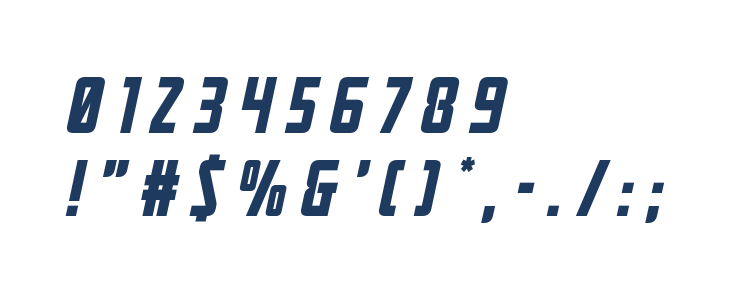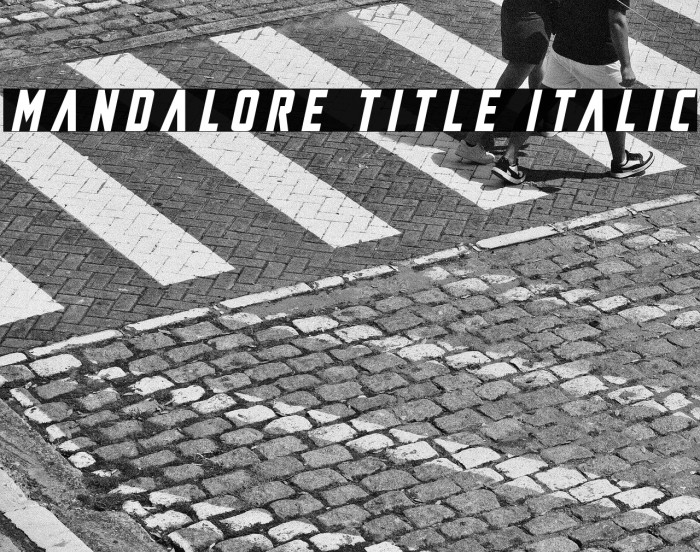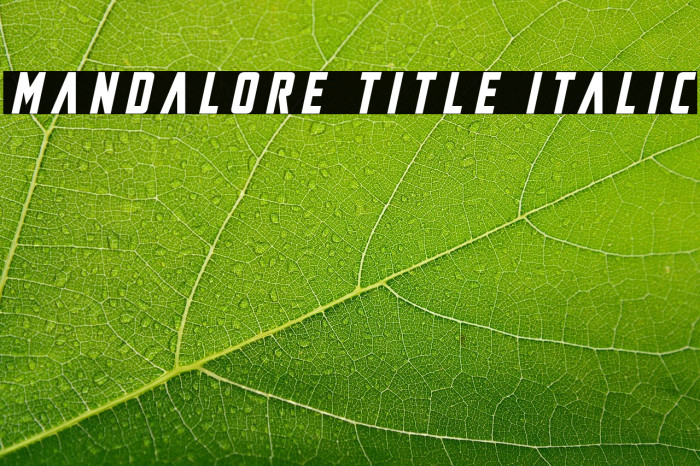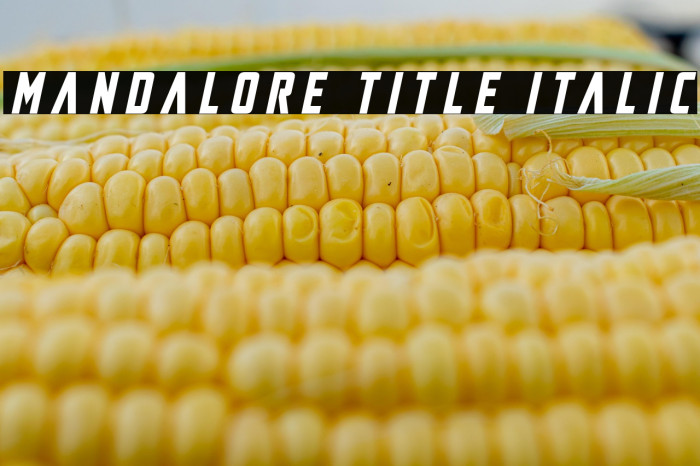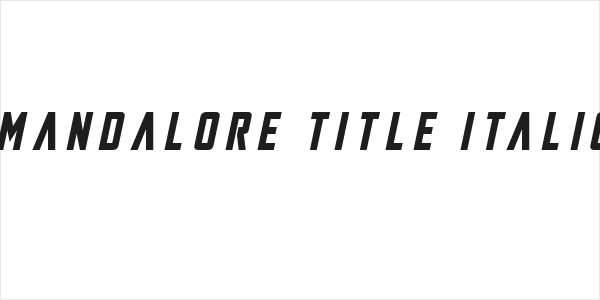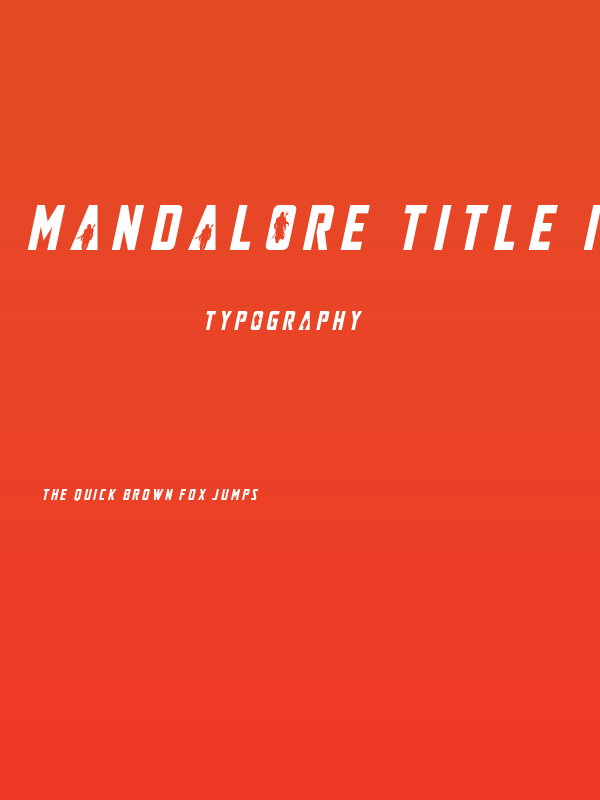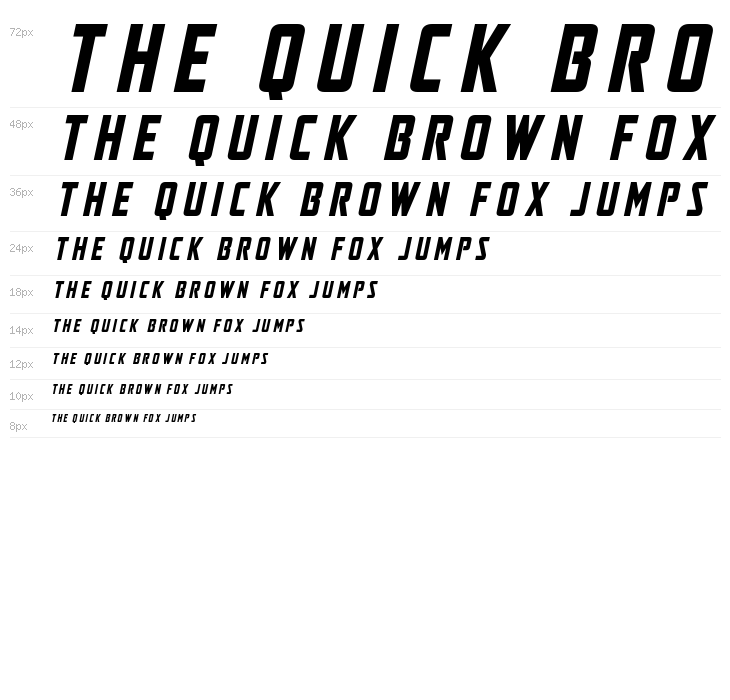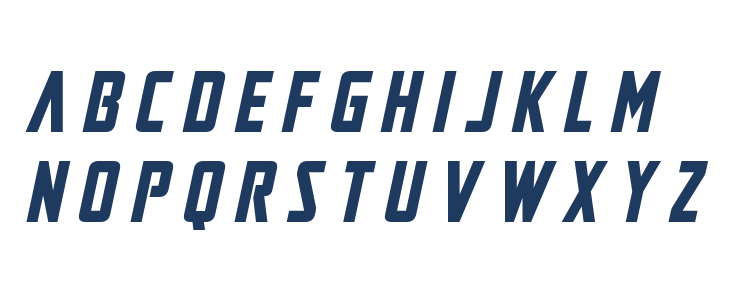
Mandalore Title Italic Font
Mandalore Title Italic Description
This font features a bold and dynamic style with a strong italic slant, giving it a sense of movement and energy. The characters are designed with sharp angles and clean lines, creating a futuristic and modern appearance. The uppercase letters are particularly striking, with a consistent height and width that enhances readability. The numerals and special characters maintain the same boldness and angularity, ensuring a cohesive look across all text. This font is ideal for projects that require a bold statement or a modern, edgy feel.
Proposed ProjectsIdeal for headlines, posters, branding, and any project needing a bold, modern touch.